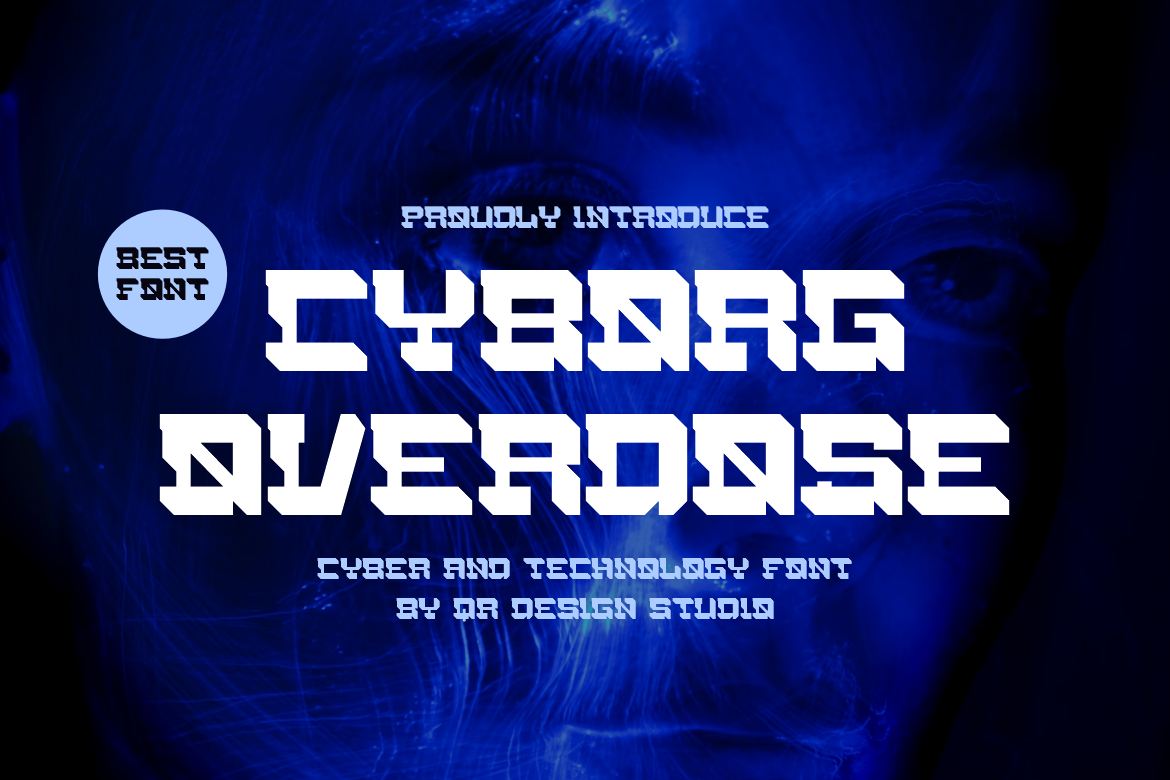
Cyborg Overdose - Space & Tech Font
Cyborg Overdose Font is a bold and authentic display font. The font is suitable for any branding project like poster, logo, sport, and many more. Outstanding in a wide range of contexts.